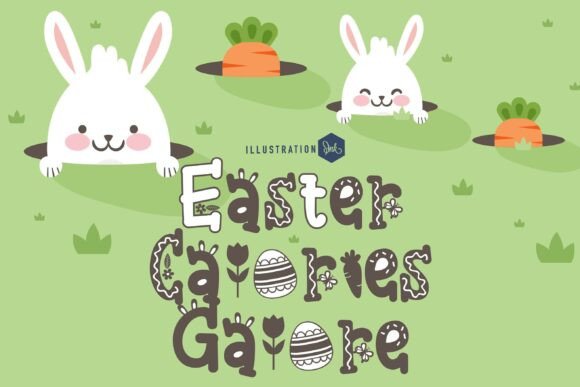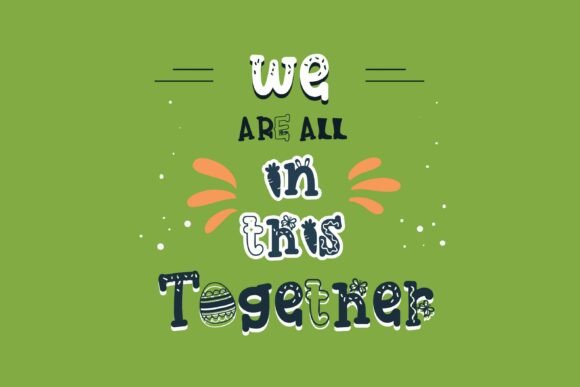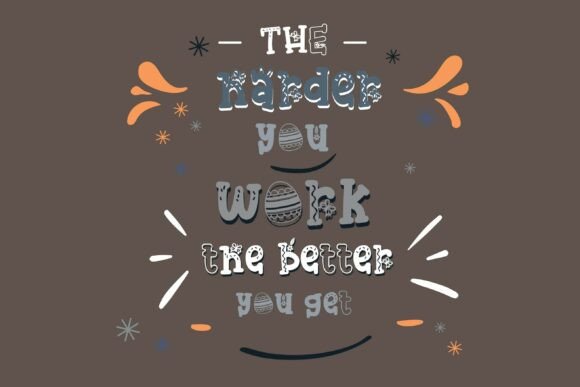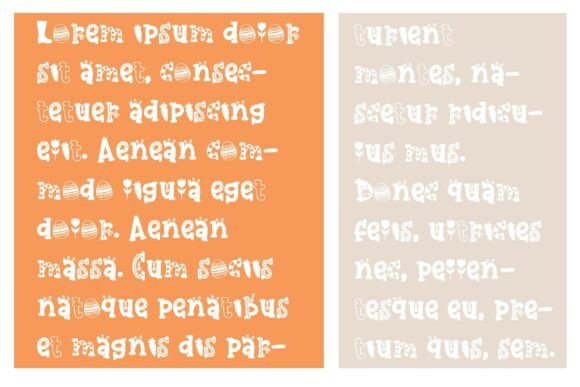
Easter Calories Galore Font
About the Easter Calories Galore Font
Introducing the Easter Calories Galore Font, a beautifully crafted typeface designed to elevate your creative projects. This hand-crafted font is a whimsical serif with adorable Easter imagery throughout.
Easter Calories Galore is ideally suited for projects requiring a light-hearted, playful aesthetic. It works exceptionally well in headlines, short slogans, invitations, greeting cards, and Easter-themed branding materials where its whimsical charm can shine. Avoid using it for large bodies of text or UI elements; its decorative nature reduces readability in extended passages.
Pair it with a clean sans-serif like Open Sans for a balanced contrast, or a more playful script font like Pacifico for a heightened sense of whimsy. For a more sophisticated approach, consider pairing it with a classic serif like Garamond, allowing Easter Calories Galore’s playful elements to stand out.
The font’s overall personality is undeniably cheerful and friendly, perfect for brands targeting a young or family-oriented audience. Its hand-crafted feel adds a touch of handcrafted authenticity, making it suitable for projects emphasizing warmth and approachability.
Easter Calories Galore Font Example